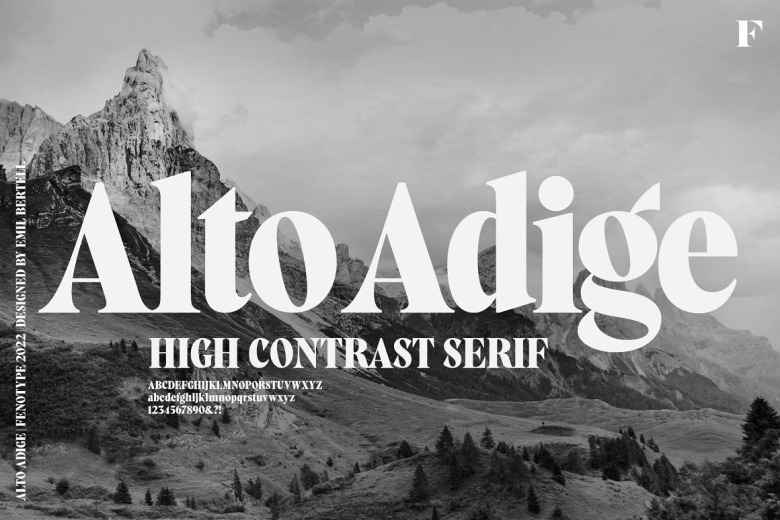
Alto Adige Font
Named for the northern Italian province bordering Austria and Switzerland, Alto Adige Display is a versatile serif typeface characterized by prominent contrast and condensed letterforms. Well-suited for headlines, logos, advertising campaigns and other attention-grabbing displays, its large x-height and bold personality demand presence on the page. The typeface excels at tightly-spaced blocks of text where legibility remains steady despite close leading.
Alto Adige truly comes alive in its larger sizes, where skilled designers can experiment with tighter tracking for maximum emphasis. The font contains a bevy of OpenType features, among them Standard Ligatures and Contextual Alternates that automatically apply in common letter pairs. But its most dramatic mechanisms are found in the 50 alternative uppercase initial glyphs housed within the Swash, Stylistic and Titling alternate function. Together, these embellished letters transform simple capitalized words into eye-catching showstoppers for any display use.
Alto Adige Serif Font